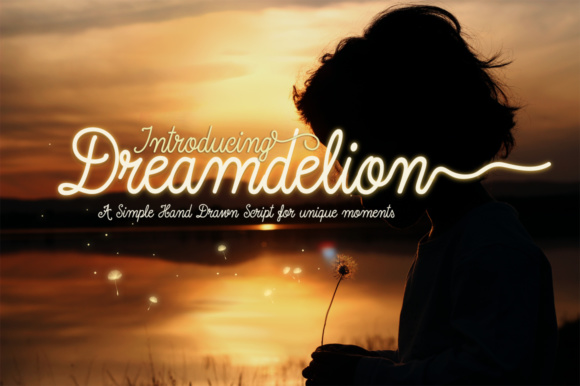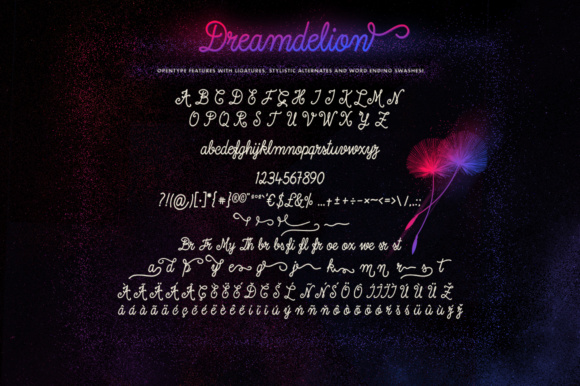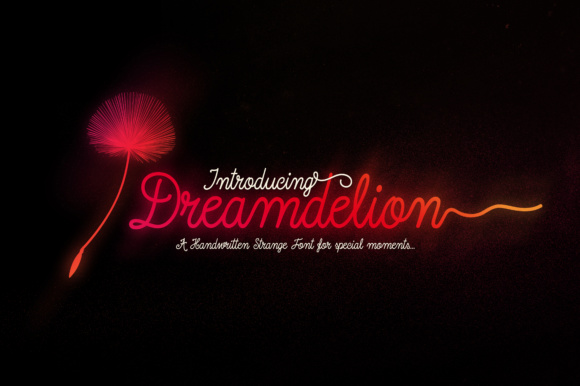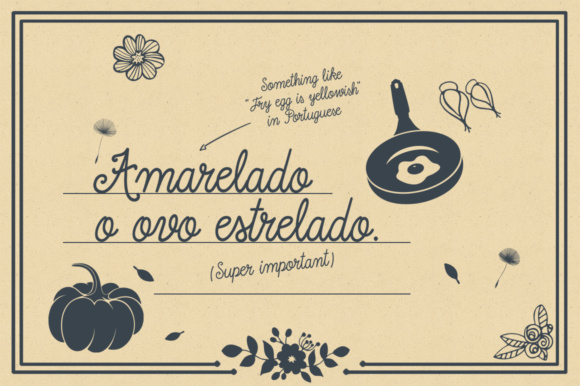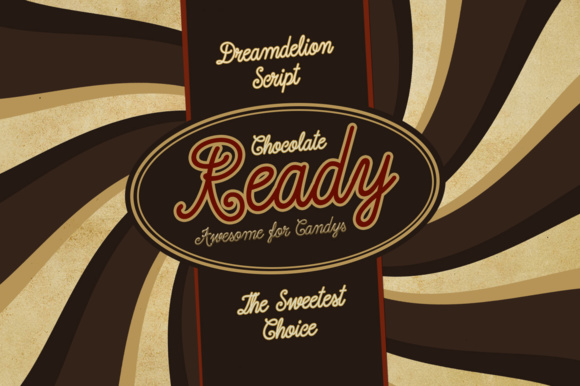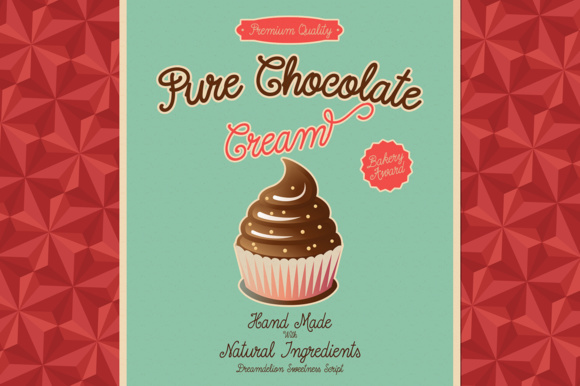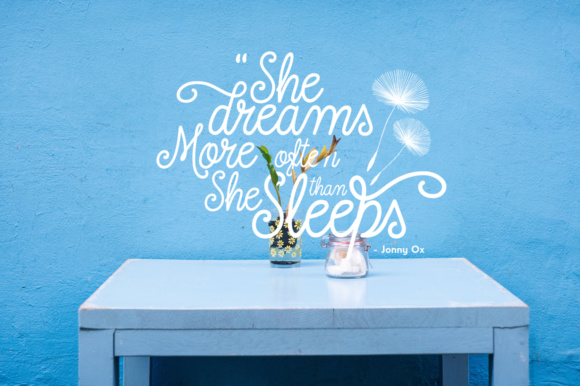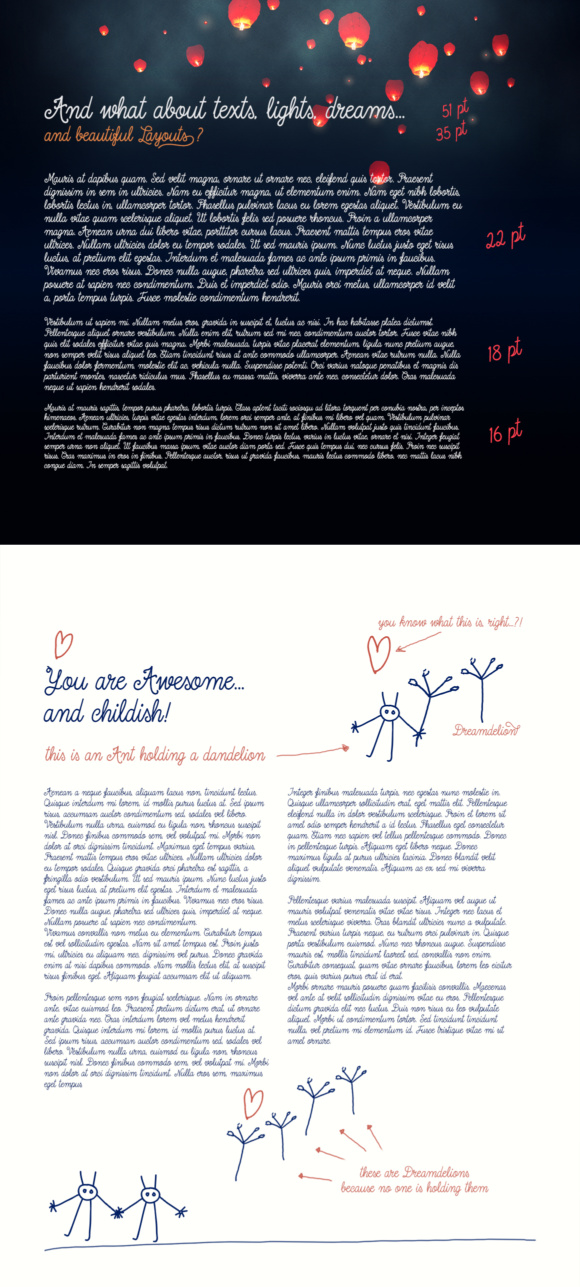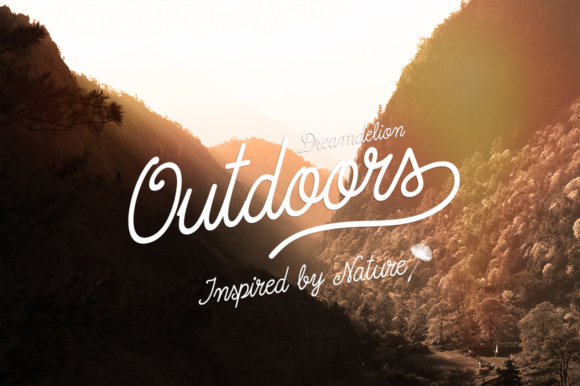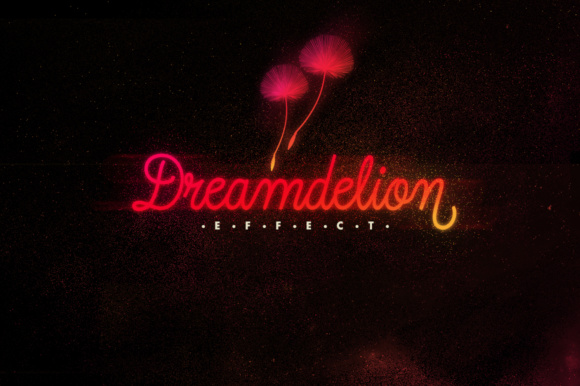
Dreamdelion Font
About Dreamdelion Font
Dreamdelion is a beautifully nostalgic and unique font with a sweet and natural look. This font is meant to convey that initial feeling of blowing a dandelion into the wind, and the romanticized way we look at the past; this irregular monoline font is perfect for tons of different project types.